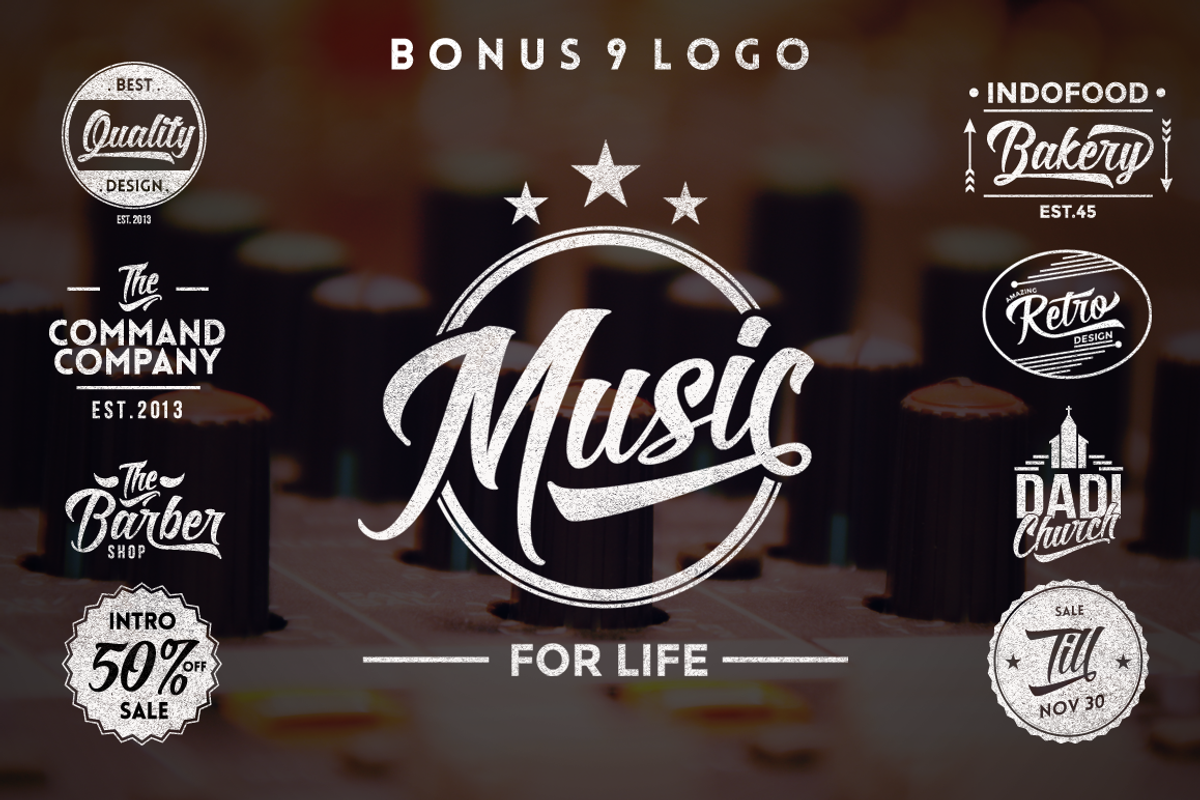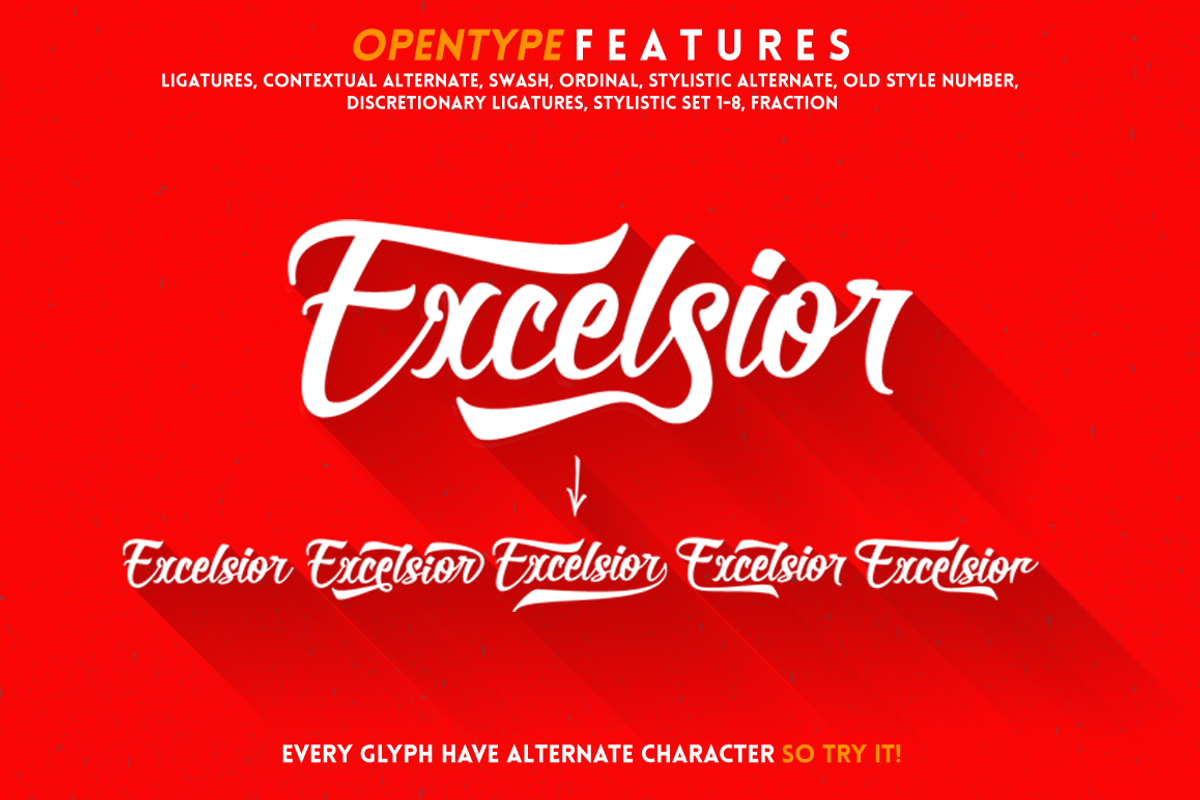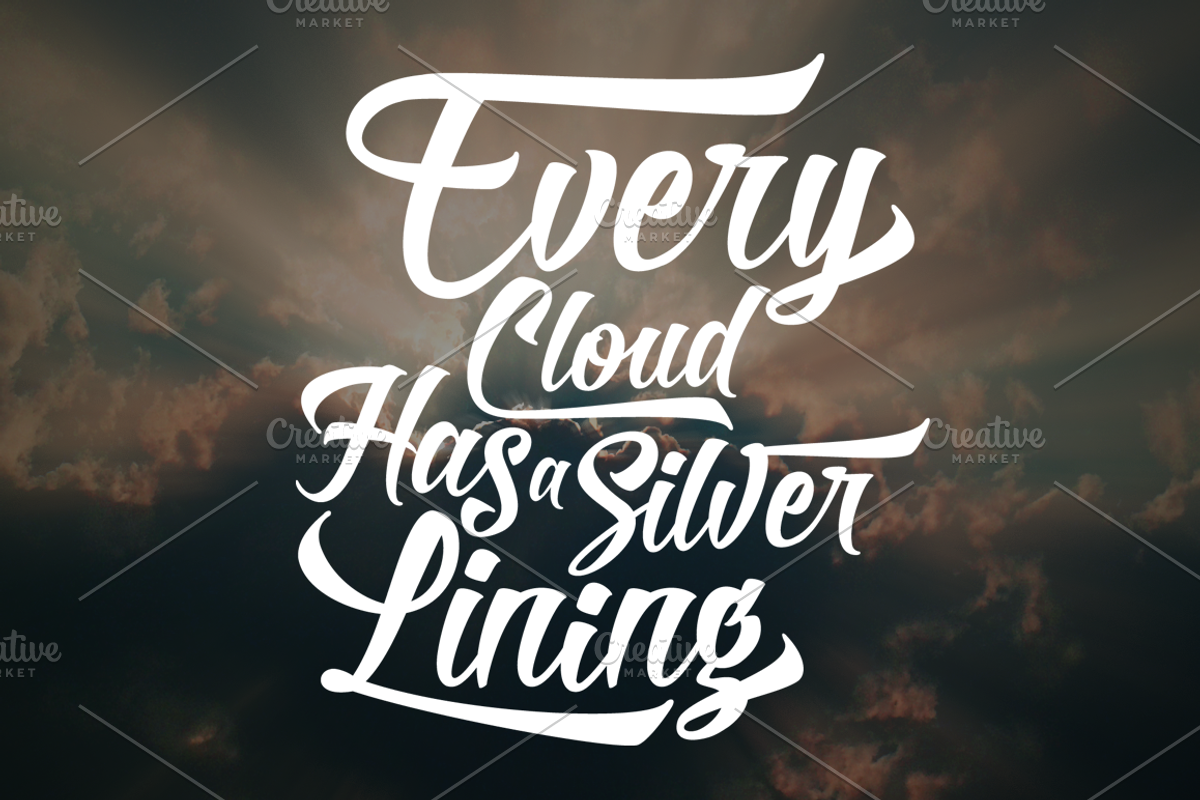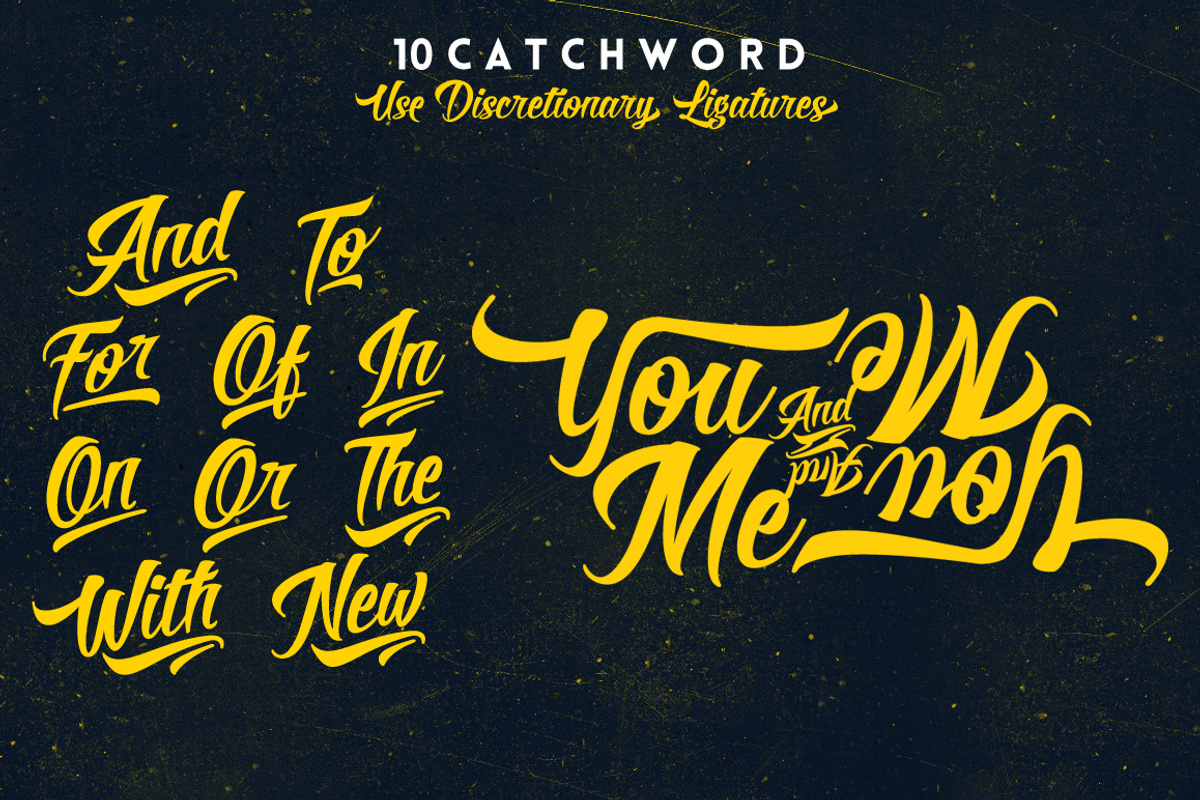
Roverd - Retro Font
Roverd - Retro Font by dexsarharryfonts is a font selected for branding, posters, packaging, typography.
- You can also use discretionary ligatures to show catchwords, or check out the five alternate "Ampersand and Underscore" styles in Stylistic
Why Roverd - Retro Font is worth a look
Roverd - Retro Font by dexsarharryfonts fits naturally into Branding, posters, packaging, typography.